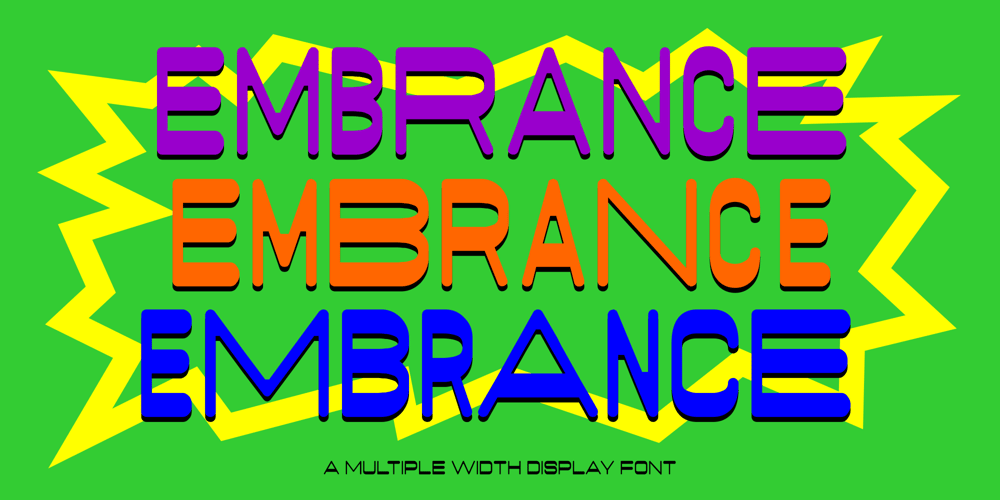
Embrance
Embrance font
Embrance Font Family was designed by Muhammad Jauhar Azmi and published by Brainware Graphic. Embrance contains 1 styles and family package options. Embrance is a multi width reverse contast dislay font with rounded strokes. Suitable for brutalism, cntemporary and experimental design concept.